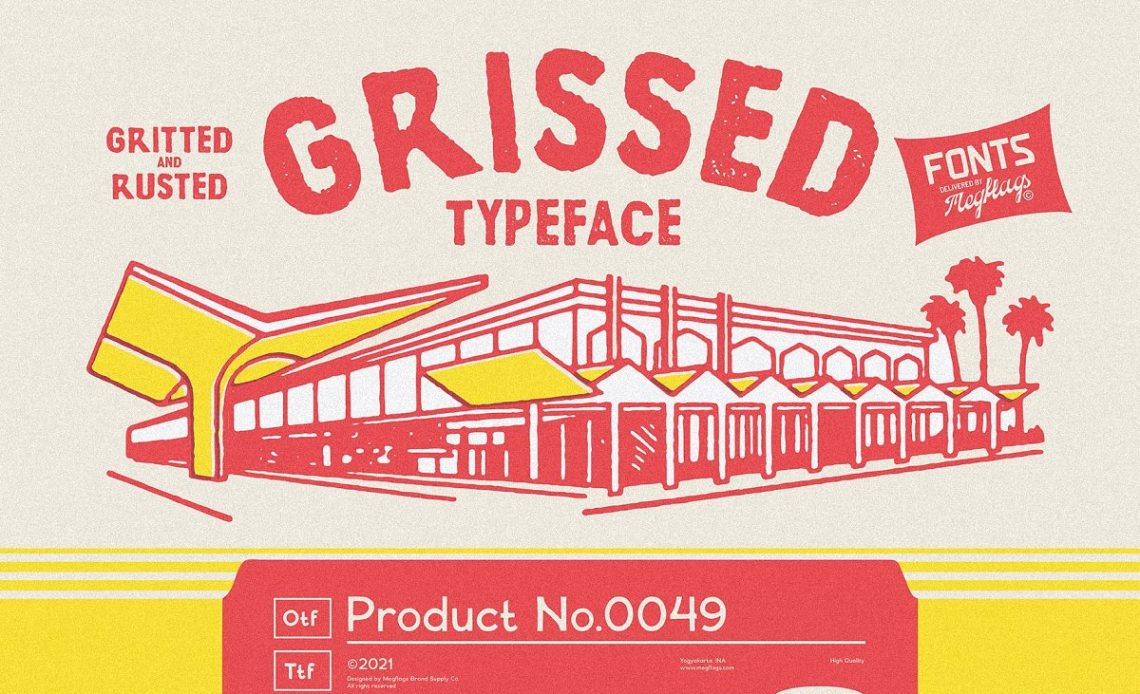
Introducing the Grissed Typeface, the ultimate font collection that will take your designs to the next level! Created by the talented Fahrenno Asnawan and brought to you by Megflags Brand Co, this font family is a must-have for anyone looking to create vintage-inspired masterpieces.
Inspired by vintage paper, front-store signs, and vintage posters, each line of the Grissed Typeface is hand-drawn uniquely, giving your designs a truly authentic and timeless feel. Whether you're working on a logo, branding, packaging design, posters, banners, stationery, t-shirts, or merchandise, this font is the perfect choice.
With the Grissed Typeface, you'll have everything you need to make your designs stand out from the crowd. The collection includes the Grissed Regular and Grissed Slant, both available in OTF format. These fonts are meticulously crafted to ensure that every character is visually stunning and perfectly aligned.